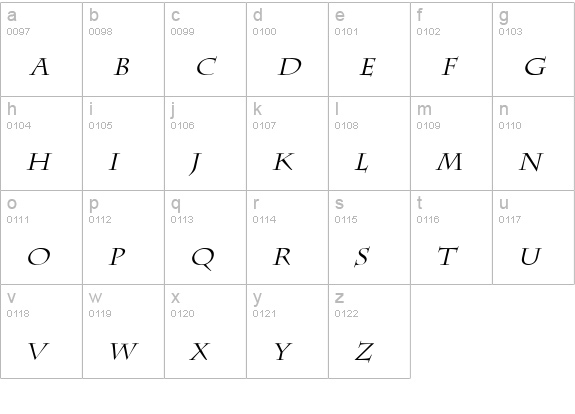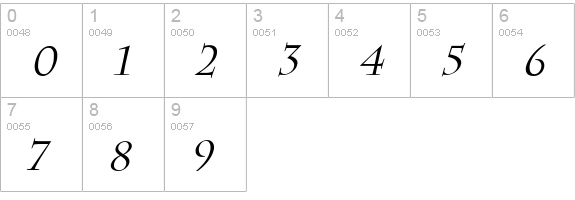
Chaz Italic Font Details
Chaz Italic is a distinctive, italic variant in the Chaz typeface family \xE2\x80\x94 well suited to design and typography projects.
Chaz Italic font is a sleek and stylish typeface that exudes elegance and sophistication. Its slanted design adds a touch of modern flair to any project, making it perfect for a wide range of applications. With its clean lines and smooth curves, Chaz Italic is sure to make a statement in any design. Best of all, Chaz Italic font is available for free download at FontsMarket.com. Whether you're working on a personal project or a professional assignment, this versatile font is an excellent choice. Add a hint of sophistication to your designs with Chaz Italic font today.